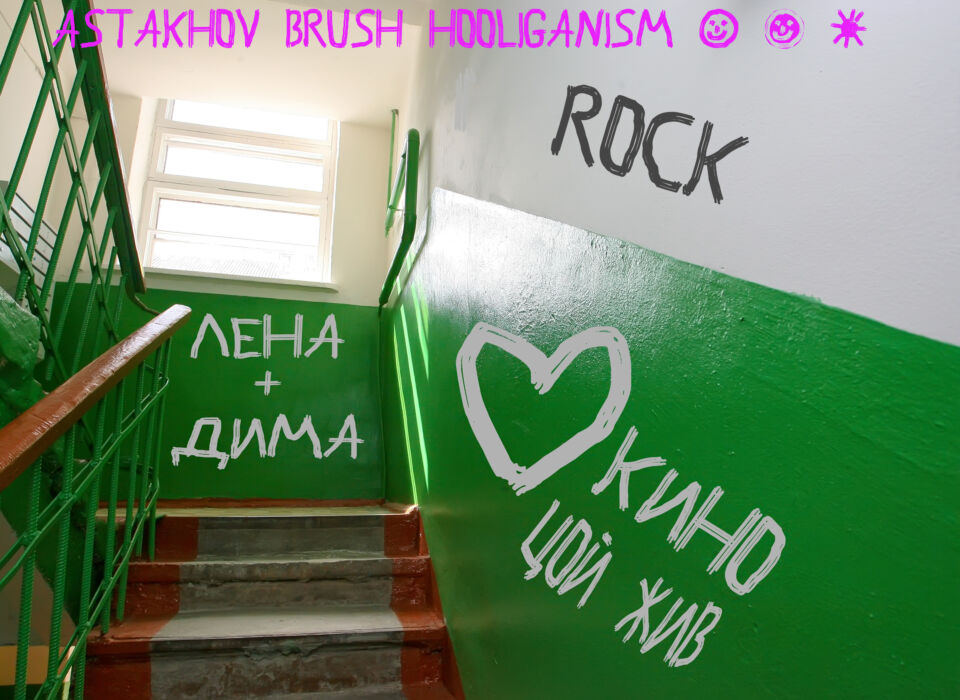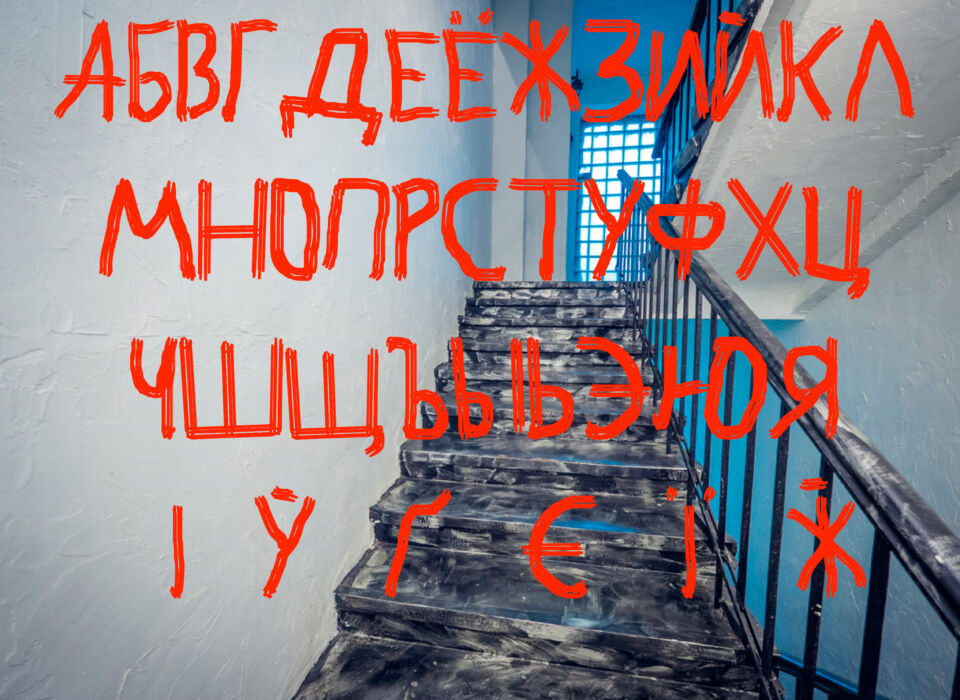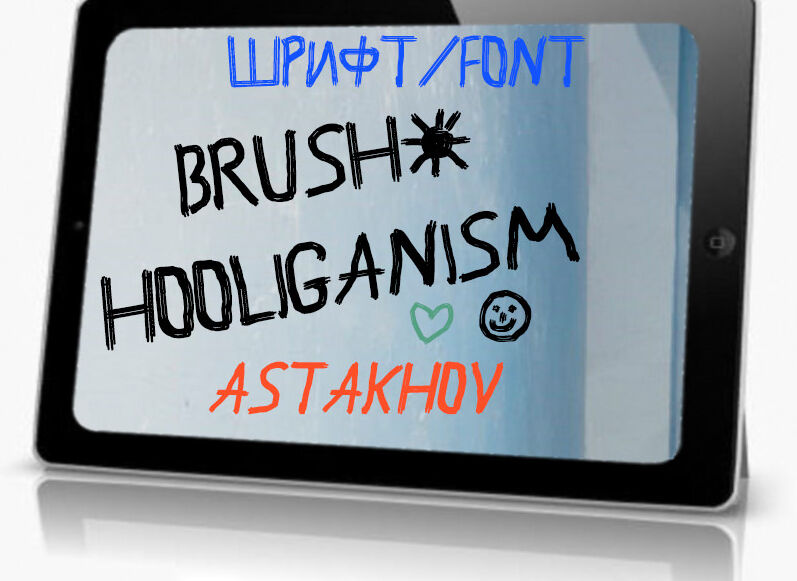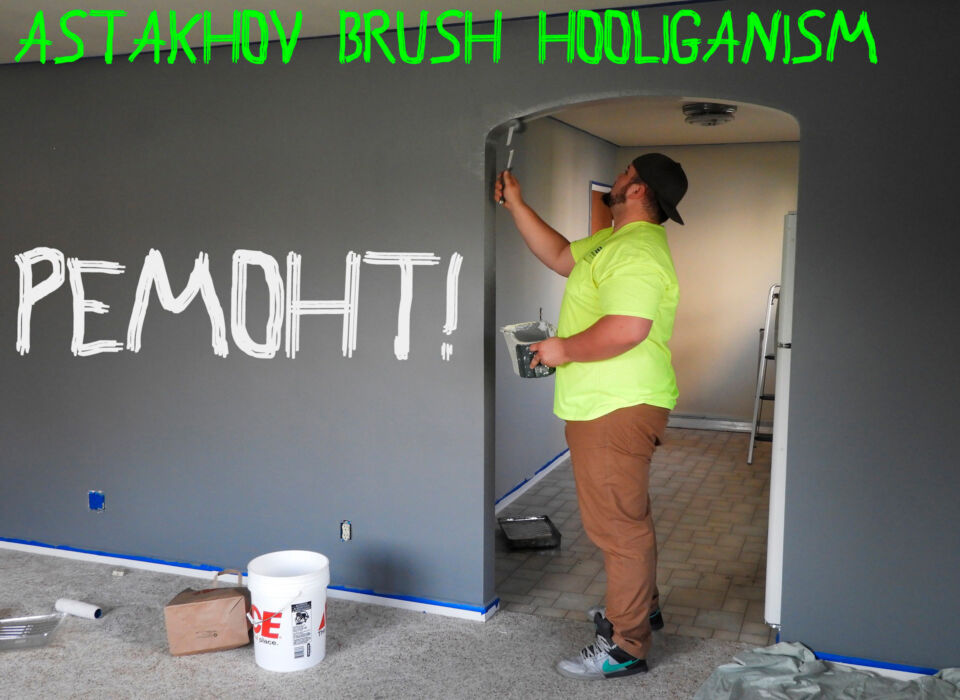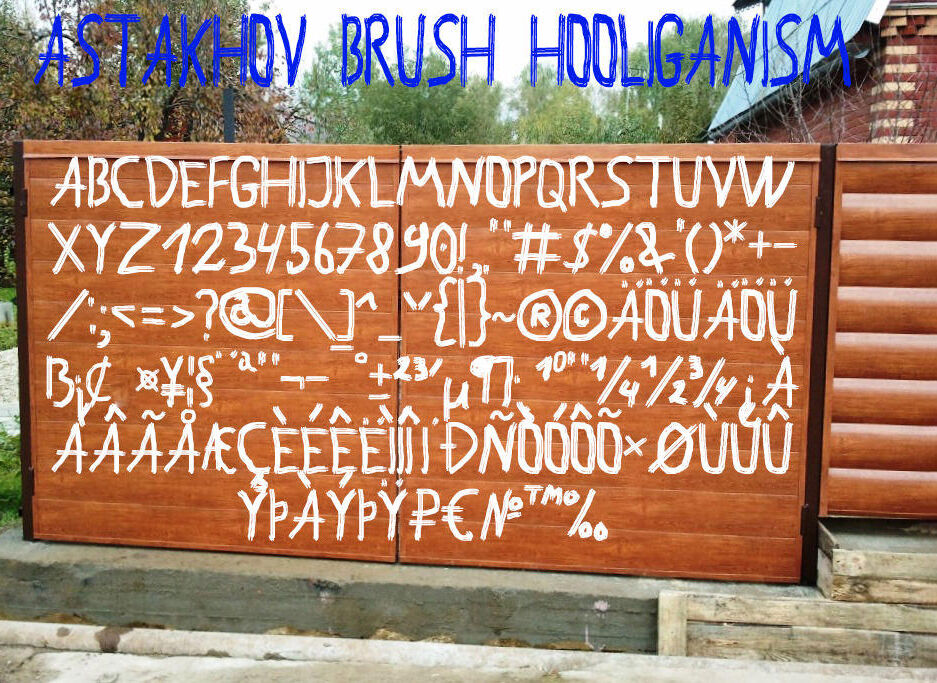
Astakhov Brush Hooliganism is a raw, hand-painted typeface with a gritty, imperfect edge. Its bold strokes and punk-inspired texture scream attitude, ideal for edgy posters, album covers, and zines. Perfect for music, streetwear, or underground events, this font delivers an authentic, anti-establishment vibe with unpolished energy.